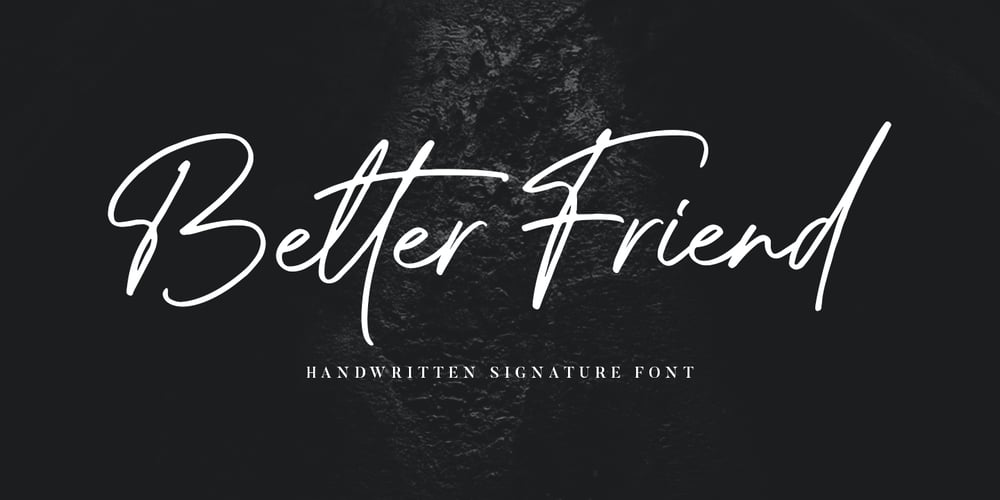
Better Friend Font Family was designed by Bagas Ardiatma and published by Trustha. Better Friend contains 1 styles and family package options. Better Friend is an authentic handwritten signature font with personal touch. Created with a marker by hand makes each stroke more natural. This font fits all creative projects and will make each of your projects amazing!